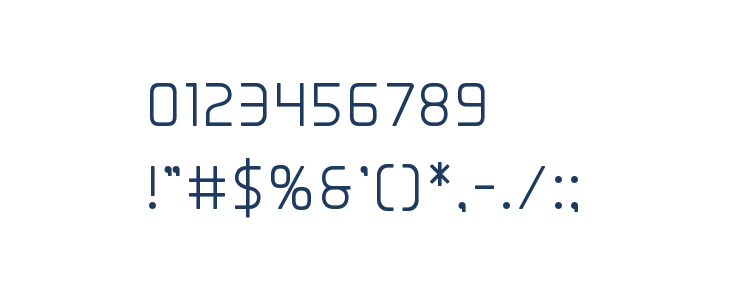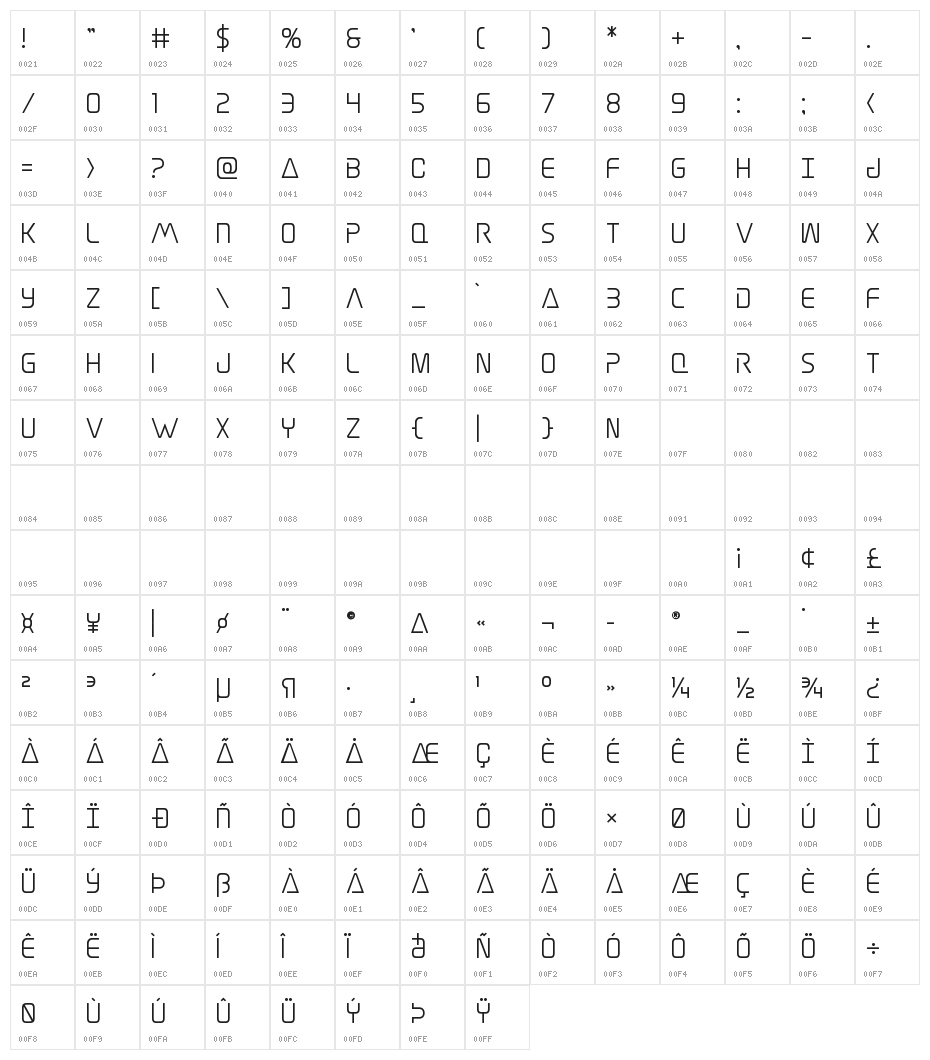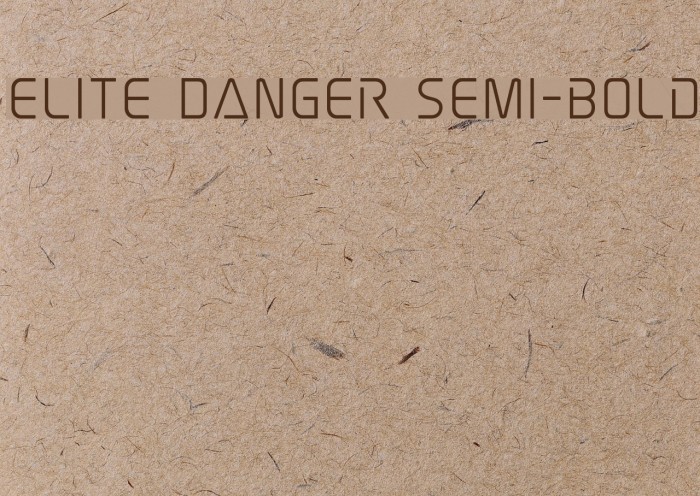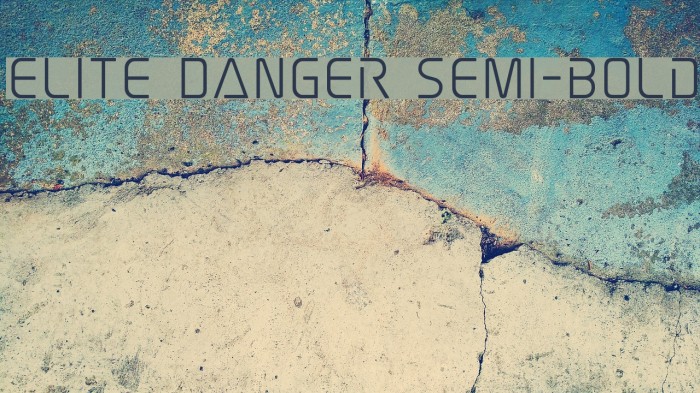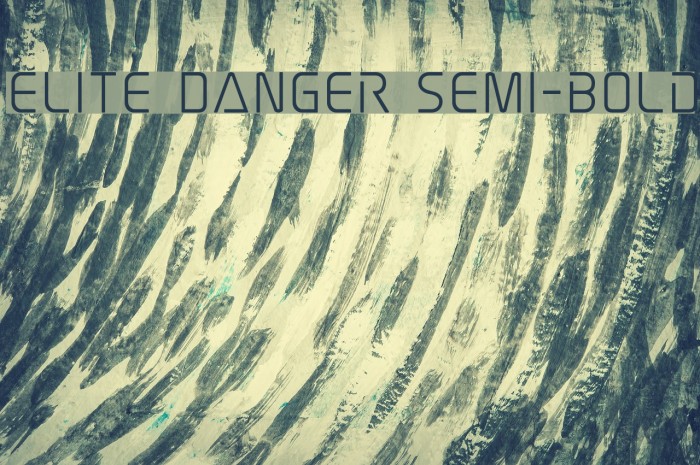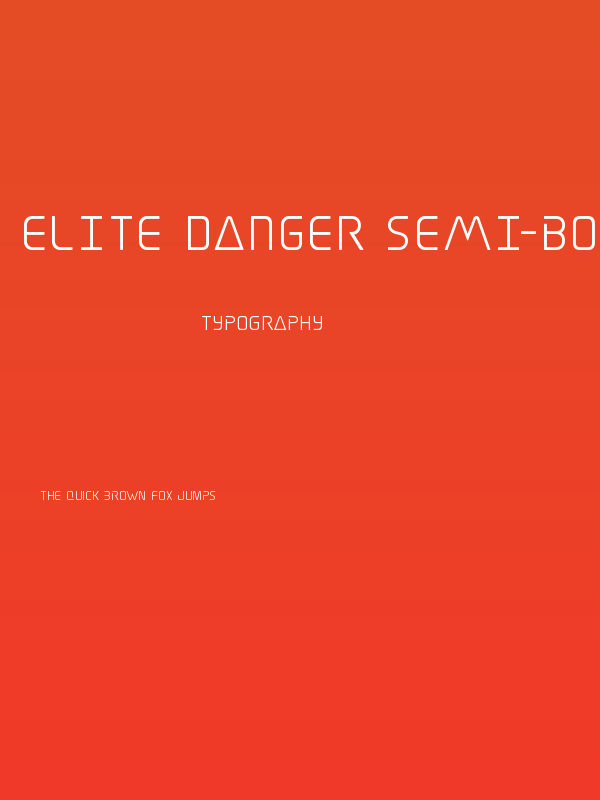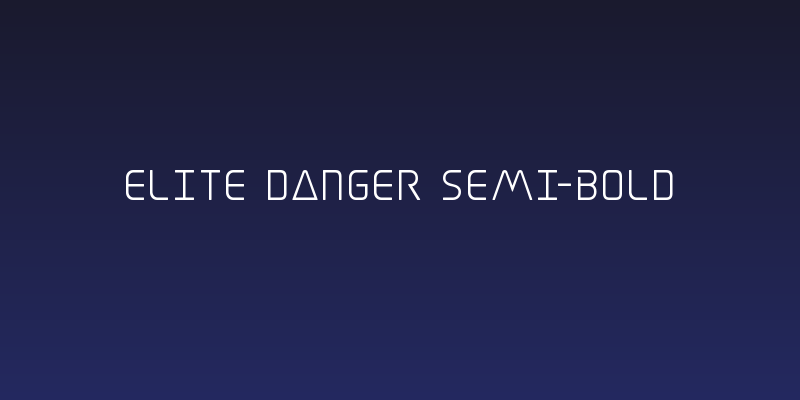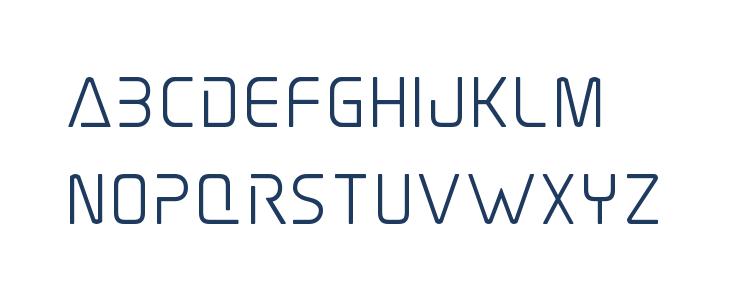
Elite Danger Semi-Bold Font
Elite Danger Semi-Bold Description
This font features a modern and geometric design with clean lines and a futuristic aesthetic. The characters are constructed with a uniform stroke width, giving it a sleek and contemporary appearance. The uppercase letters are distinct and angular, while the lowercase letters maintain a consistent style that complements the uppercase. The numerals are clear and easily readable, making them suitable for digital displays. Special characters are included, maintaining the same geometric style. This font is ideal for projects that require a modern and technical look.
Use CaseHeadlines, Logos, Digital interfaces
Proposed ProjectsIdeal for technology branding, digital interfaces, video game design, and futuristic-themed projects.